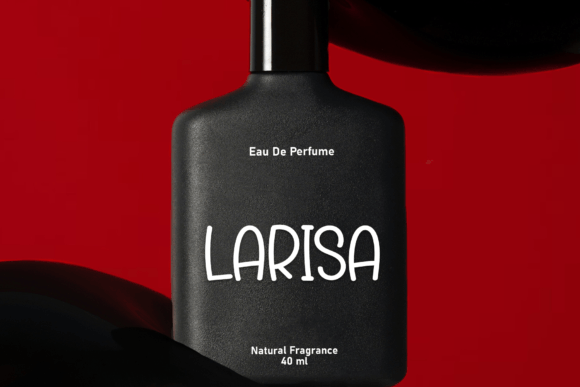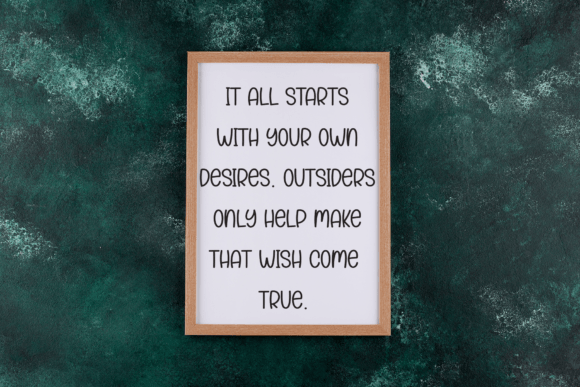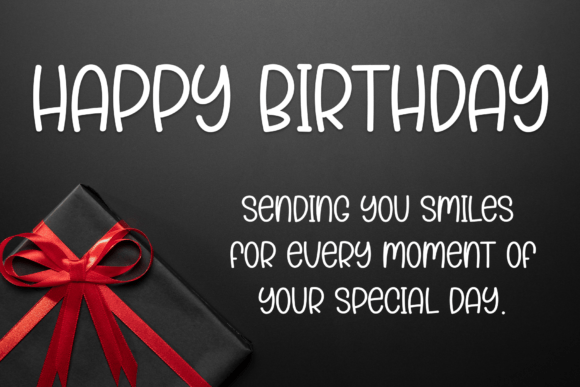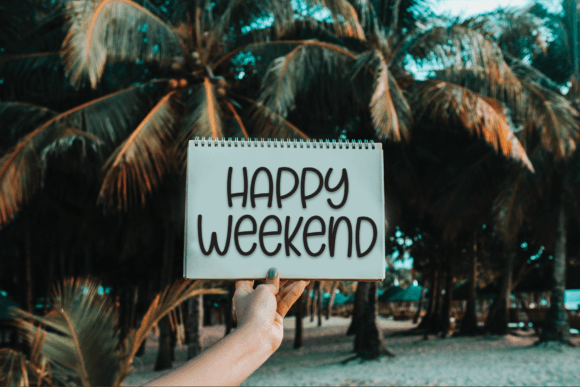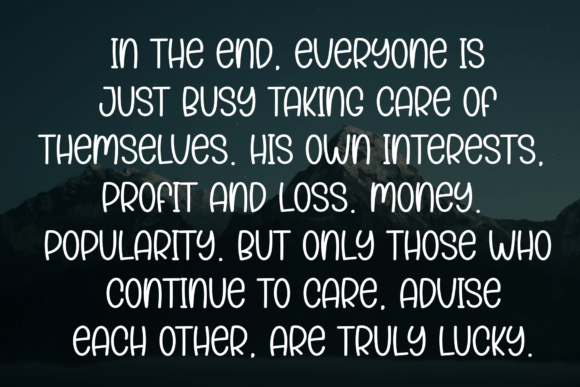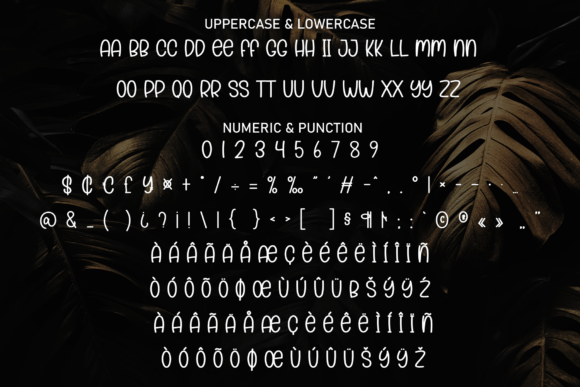
The Perfect Font for a Fun and Casual Vibe: A Deep Dive into Black Sample Font
I still remember the time I was working on a project for a client’s birthday party invitation. I had all the design elements ready, but I was stuck on finding the perfect font. I wanted something that would convey a friendly and playful tone, but I just couldn’t seem to find it. That’s when I stumbled upon Black Sample font, and it was love at first sight! ✨
Black Sample is a round handwritten font that looks like it was written with a thick marker. It has smooth, curved letters that give a friendly and casual feel, making it great for fun and informal projects like posters, greeting cards, and playful logos.
An Honest Review of Black Sample Font
What I Love About Black Sample Font
• ✨ Smooth and curved letters that give a friendly and casual feel
• ✅ Perfect for fun and informal projects like posters, greeting cards, and playful logos
• 🎉 Great for headlines and titles that need to make a statement
• 👍 Easily readable even at smaller font sizes
While Black Sample font is amazing, there are a few things to keep in mind: 🤔
• ⚠️ Limited use for body text – it’s best suited for headlines and titles
• ⚠️ May not work well for formal or professional projects – it’s a very casual font
The Backstory of Black Sample Font
Black Sample font was designed with the intention of creating a friendly and casual font that would be perfect for fun and informal projects. The designer wanted to create a font that would look like it was written with a thick marker, with smooth and curved letters that would give a playful feel.
Q: What is Black Sample font?
A: Black Sample font is a round handwritten font that looks like it was written with a thick marker. It has smooth, curved letters that give a friendly and casual feel.
Q: What is Black Sample font best used for?
A: Black Sample font is best used for fun and informal projects like posters, greeting cards, and playful logos.
Q: Is Black Sample font available in different styles?
A: Black Sample font may come in different styles or variations, but it’s best to check with the font designer or foundry for more information.